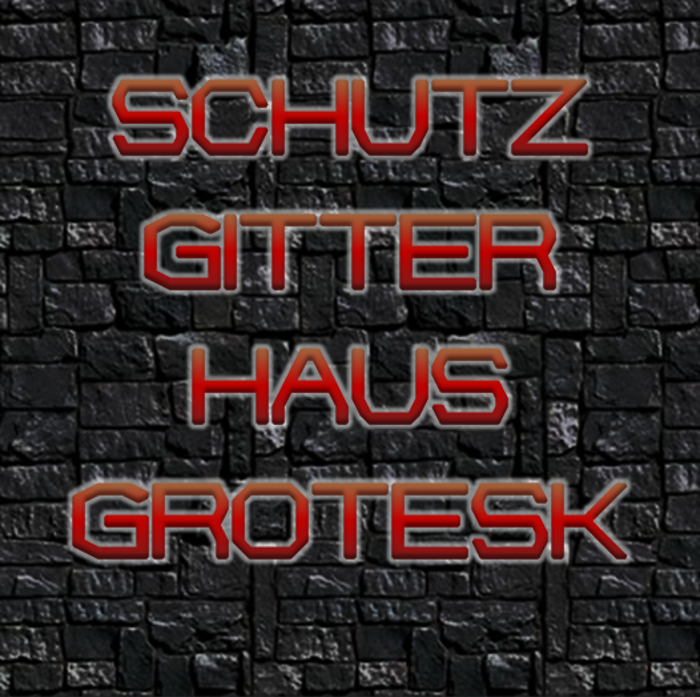
Schutzgitterhaus-Grotesk NBP Font
Wide square text with mechanical slants. Name is German for "Guard House Grotesque" (sans-serif).
Changes in Version 1.2:
-Fixed line widths on upper and lowercase X